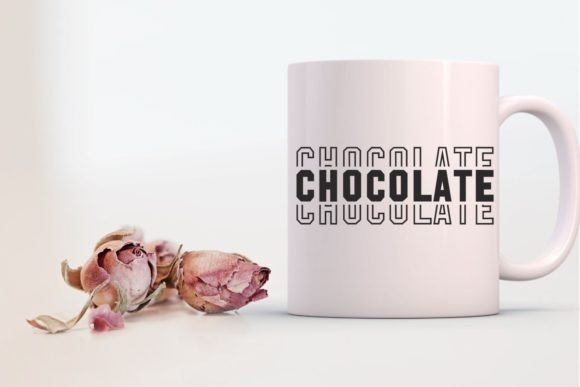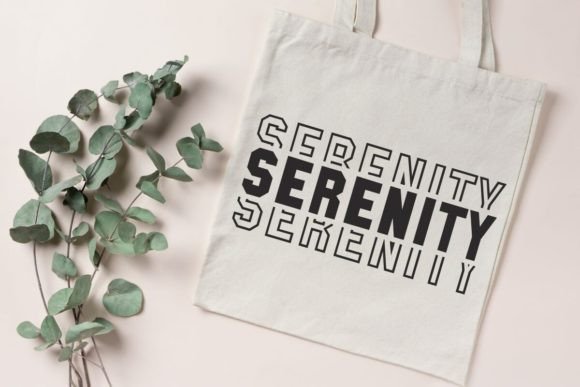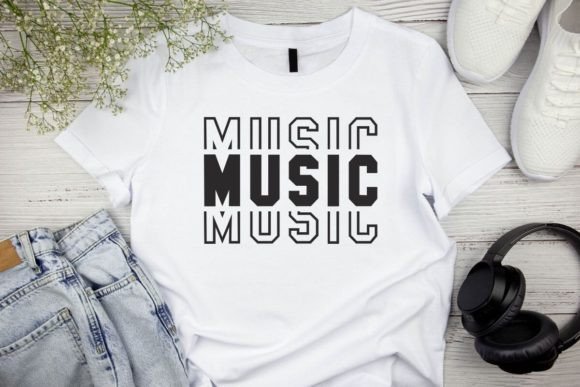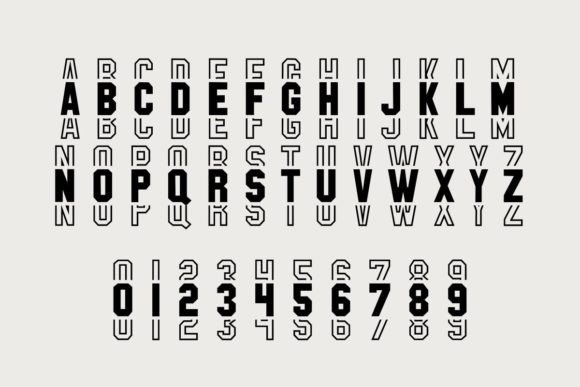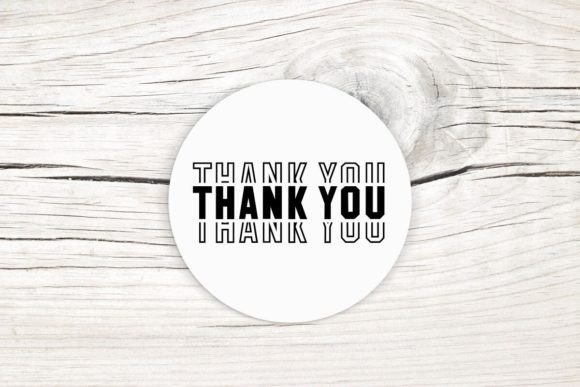
Chocolate Font
Chocolate is a bold, stacked display font. The perfect font for craft needs like t-shirts, mugs, DIY, stickers, tote bags, wall art, stickers, clothing, labels, titles and other creative craft needs.